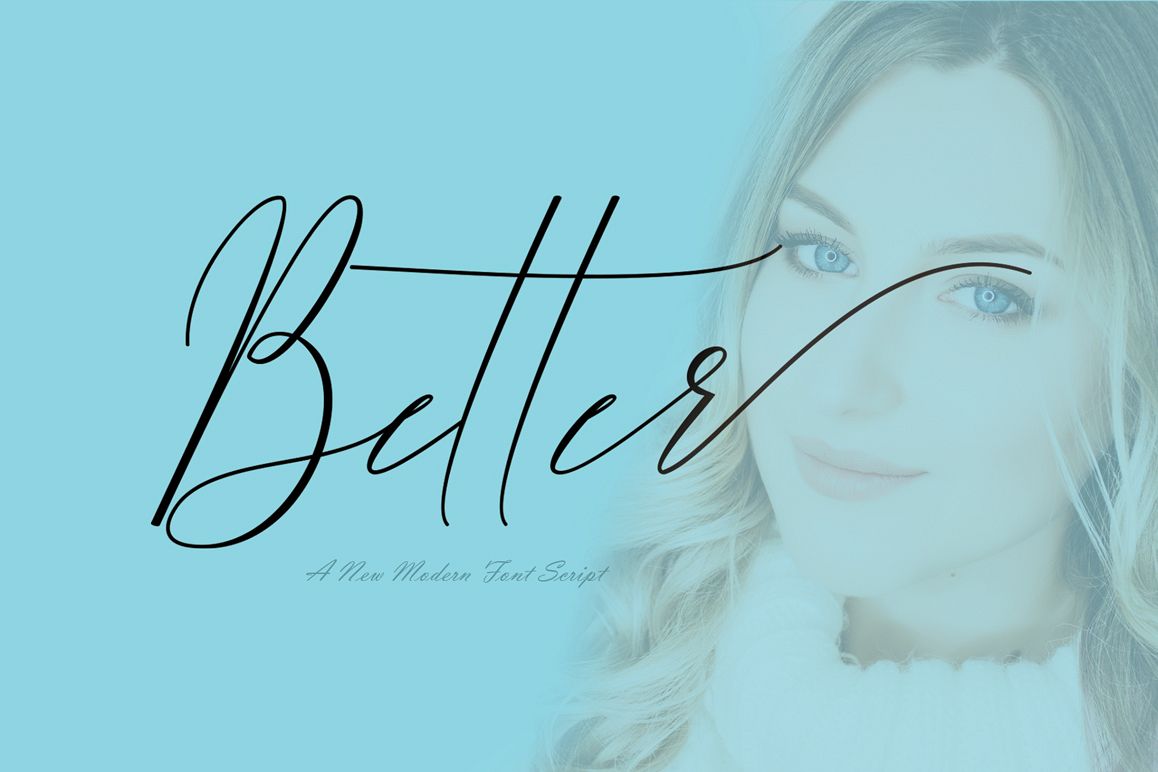
Better
Better a work that is purely handwritten, has its own characteristics. It is perfect for invitations, signatures, blogs, social media, business cards, product brands.
Better has stylish standards, Alternate Stylistic, Stylistic Sets and ligatures. and swash and includes uppercase and lowercase letters, numbers and punctuation.
Can be used for various purposes. Like titles, logos, wedding invitations, t-shirts, letterheads, labels, news, posters, badges, etc. To enable OpenType Style alternatives, you need a program that supports OpenType features like Adobe Illustrator CS, Adobe Indesign & CorelDraw X6-X7.